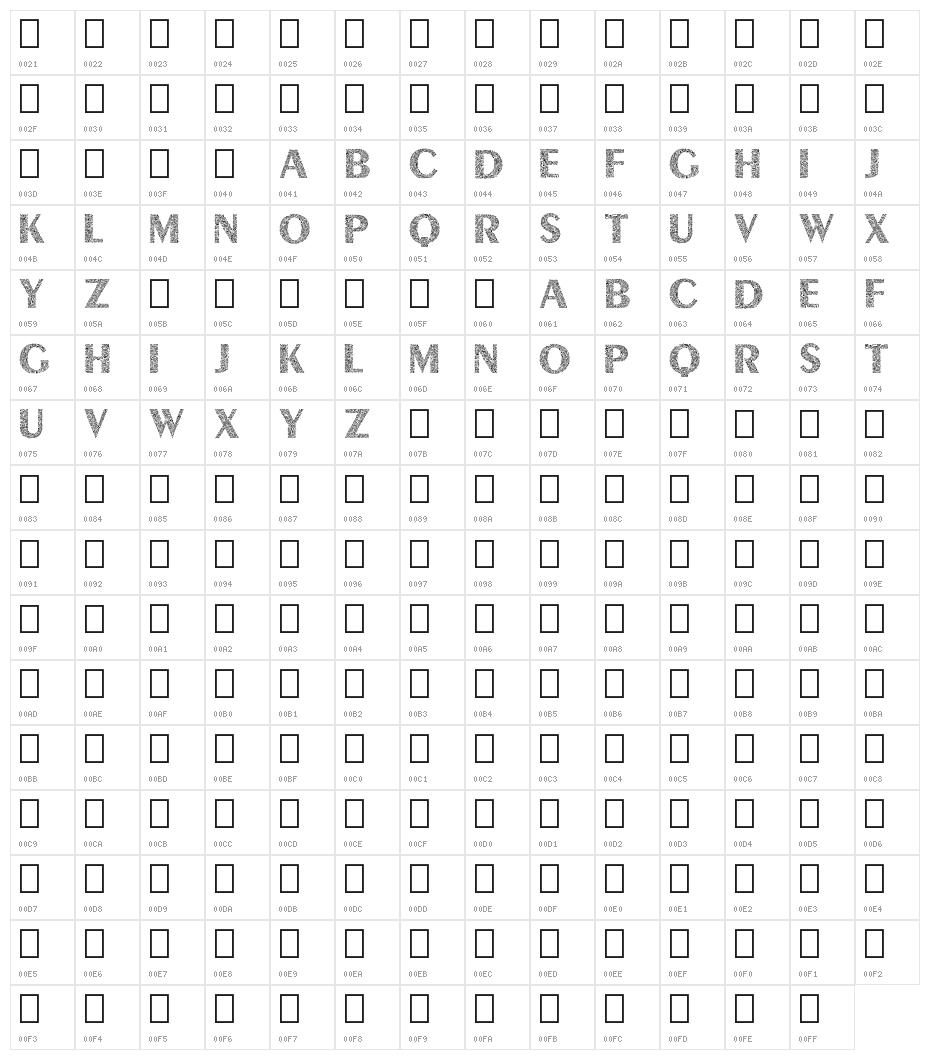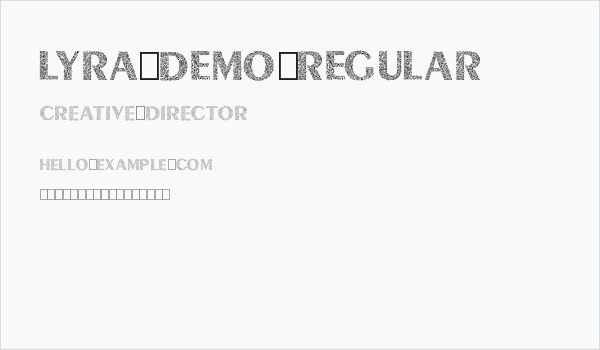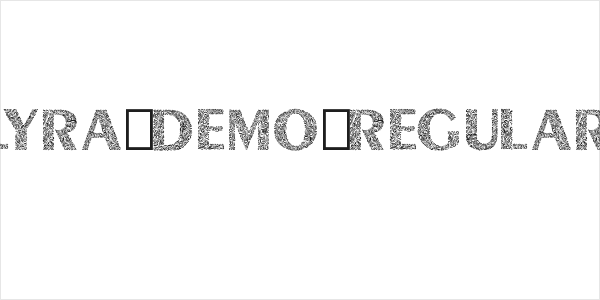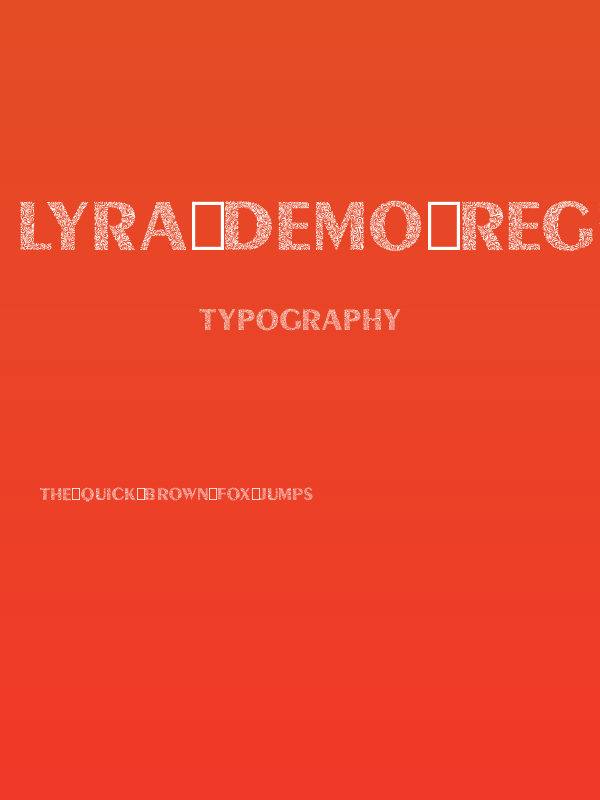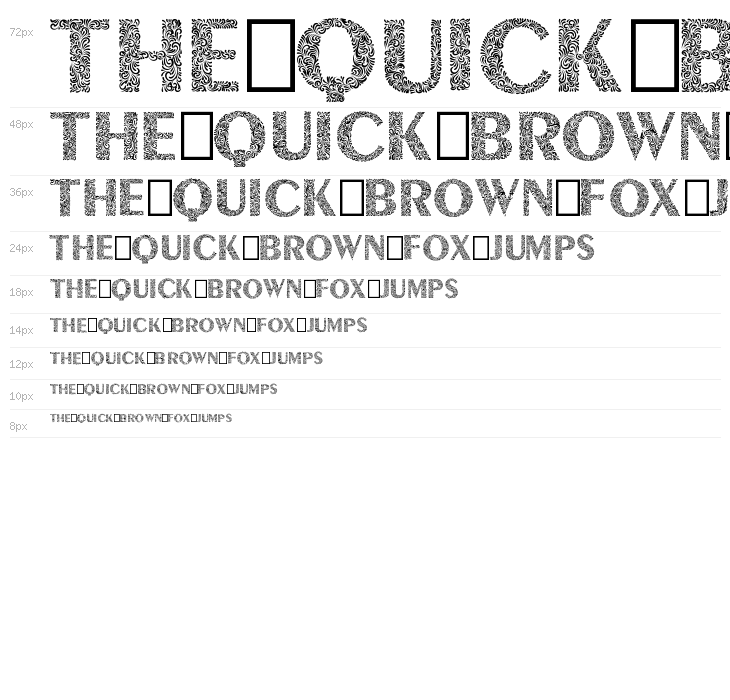
Lyra Demo Regular Font
Lyra Demo Regular Description
This font features a unique and intricate design with a textured, ornamental pattern filling each character. The uppercase letters are bold and striking, with a decorative style that draws attention. The absence of lowercase letters and numbers suggests a focus on display purposes. The special characters are not present, emphasizing the font's decorative nature. The overall appearance is artistic and visually engaging, making it suitable for creative and expressive projects.
| Proposed Projects | Ideal for artistic posters, creative branding, and decorative headings. |